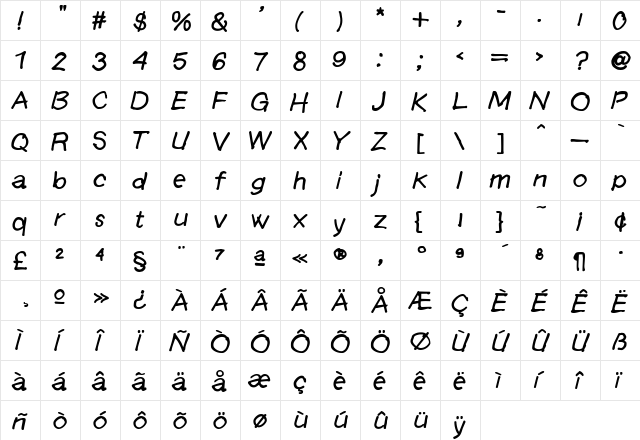
Langer AltBoldItalic
Design Context for Langer Typeface
Langer is a composed and adaptable typeface that performs quietly and consistently across a wide range of design contexts. The slanted form adds forward momentum and visual energy. The heavy weight commands attention and anchors typographic hierarchies.
Pro Tip: Try Langer for annotation and caption copy alongside an upright companion — the contrast in angle creates a dynamic but ordered typographic system.